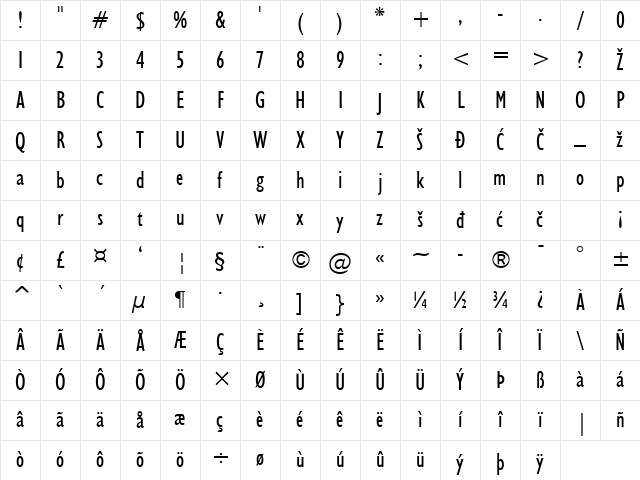
Design Context for 101! Pierre Pelican
101! Pierre Pelican is a composed and adaptable typeface that performs quietly and consistently across a wide range of design contexts.
Pro Tip: Use 101! Pierre Pelican in both headline and body roles to test its range before committing to a single application.